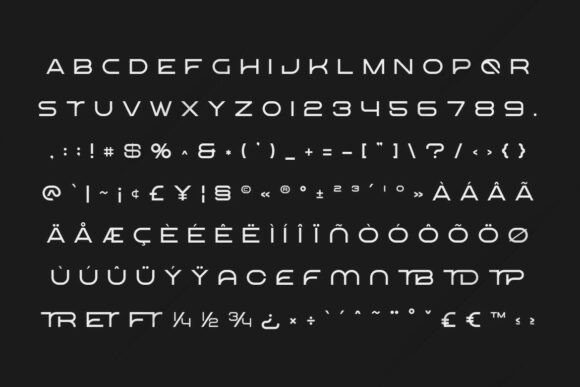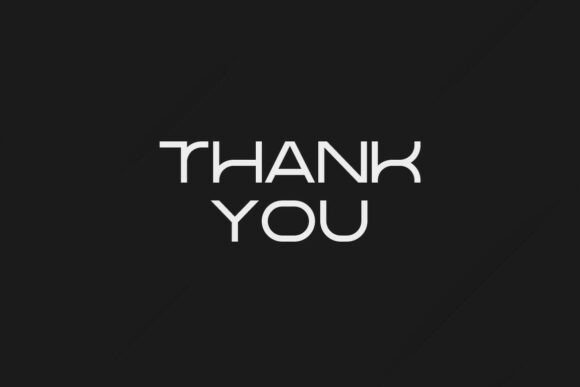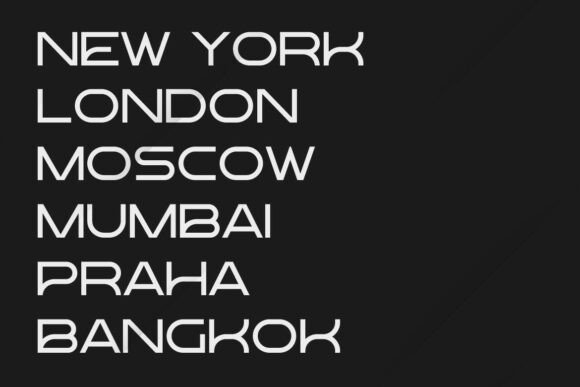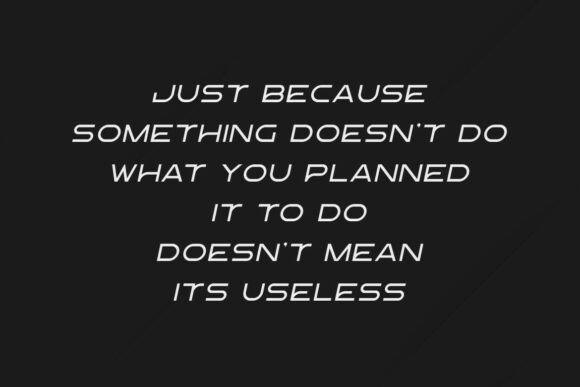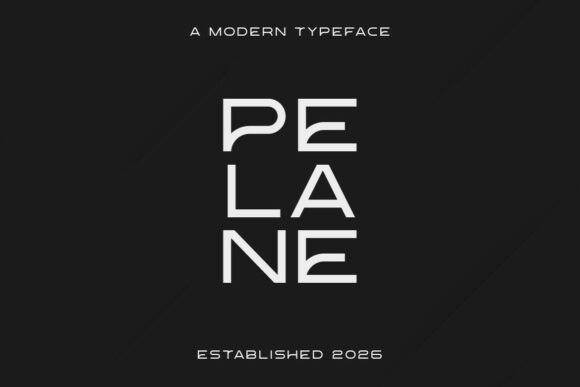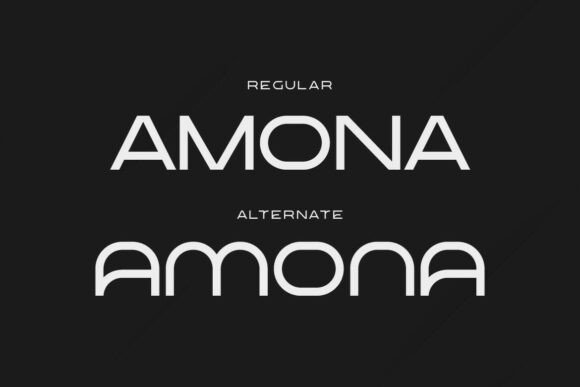
Introduction to Pelane Font
As designers, we’ve all been there – staring at a blank canvas, searching for the perfect font to bring our creative vision to life. The moment of inspiration hits, and you find yourself captivated by a unique, modern sans serif typeface that screams innovation and sophistication. For those who crave that ‘aha’ moment, we’re excited to introduce the Pelane Font – a game-changing design resource that’s set to revolutionize the world of typography.
With its cutting-edge smart ligatures and stylish alternates, Pelane Font is the ultimate tool for designers looking to infuse their projects with a digital personality. Whether you’re working on a high-quality UI/UX design, crafting a stunning website, or developing a cutting-edge SaaS platform, this versatile font is sure to elevate your creative project to new heights.
Pelane Font
What works well: ✨ The Pelane Font has a unique and modern design aesthetic that’s perfect for creating a sleek and professional look. The font is highly legible, making it ideal for body text and headings alike. I also appreciate the transparent background option, which allows for seamless integration into any design.
- Unique and modern aesthetic
Limitations: ⚠️ While the Pelane Font is an excellent addition to any design resource library, it may not be suitable for projects that require a wide range of font sizes or styles. Additionally, the font may not be compatible with all operating systems or software.
Overall impression: I’m impressed with the Pelane Font’s design and functionality. It’s a valuable resource for designers looking to create high-quality, modern designs. While it may have some limitations, I believe it’s a solid addition to any design library.
Tips for Getting the Most Out of Pelane Font
For the best results, use the Pelane Font in combination with other design elements that match its style and aesthetic. Experiment with different font sizes and colors to create a visually appealing design.
The Pelane Font is commonly used in creative projects such as logos, business cards, and brochures. Its high-quality design and transparent background make it a versatile resource for any design need.